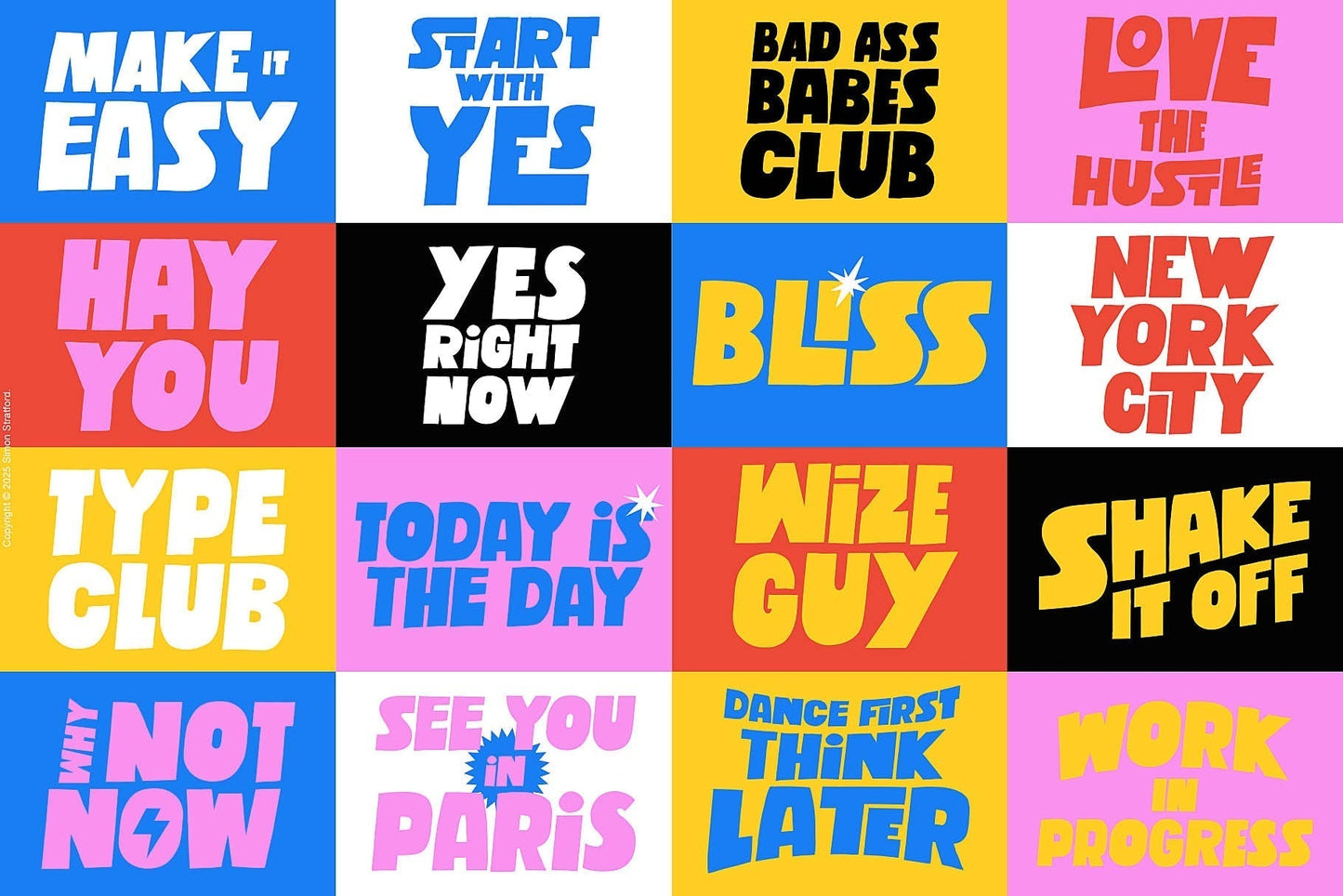
Some fonts sit quietly in the corner. Pumped Up Kicks Font jumps on the furniture.
It is big, bold and deliberately wobbly—an uppercase display typeface created for designs that need energy, personality and absolutely no encouragement to stand out.
Because if your headline is important, it should look important.
A bold font with a playful side
Pumped Up Kicks Font is a sans-serif typeface with large letterforms, crisp lines and an unconventional rhythm.
Some glyphs dip below the baseline. Others float slightly above it. Nothing feels rigid, overworked or painfully well behaved.
The result is typography that feels active.
It moves even when it is standing still.
That makes Pumped Up Kicks ideal for posters, packaging, branding and advertising where grabbing attention is not an optional extra. It has the clarity of a bold sans serif but avoids the cold, mechanical appearance of a conventional geometric font.
Readable does not have to mean predictable.
Uppercase only, but never repetitive
Pumped Up Kicks is designed entirely with capital letters.
The lowercase keyboard positions contain alternate uppercase glyphs, giving you more ways to shape words and break up repeated characters.
If a word contains two letter As, they do not need to look identical. Choose an alternative and the typography immediately feels more natural, individual and considered.
Every letter from A–Z has at least three stylistic alternatives. Some have as many as seven.
That is not variety for the sake of it.
It is creative control.
Forty-six reasons to use ligatures
Letters do not always look their best when left alone.
Pumped Up Kicks Font includes 46 ligatures that replace particular letter combinations with specially designed forms. Combinations such as “LO” and “RA” can connect or interact in more distinctive ways, helping words look designed rather than simply typed.
The ligatures can be applied automatically when typing in uppercase in compatible OpenType software.
It is a small piece of typographic trickery.
Which is often where the best ideas begin.
Where to use Pumped Up Kicks Font
This bold display font works best when it is allowed to take up space:
- Posters and flyers
- Logos and energetic branding
- Packaging and product labels
- Signage and advertising
- Social-media graphics
- T-shirts and merchandise
- Editorial headlines
- Campaign and event artwork
Do not use it when you want your message to whisper.
That would be like hiring a brass band and asking it to mime.
More than a handful of big letters
Behind its playful appearance is a serious character set.
In other words, the font may fool around.
The design work behind it does not.
Make the headline the idea
Good typography communicates the message.
Great typography becomes part of it.
Pumped Up Kicks Font gives words a voice before anyone has read them. It is confident, upbeat and just unpredictable enough to make people look twice.
Safe typography fills space.
Distinctive typography owns it.